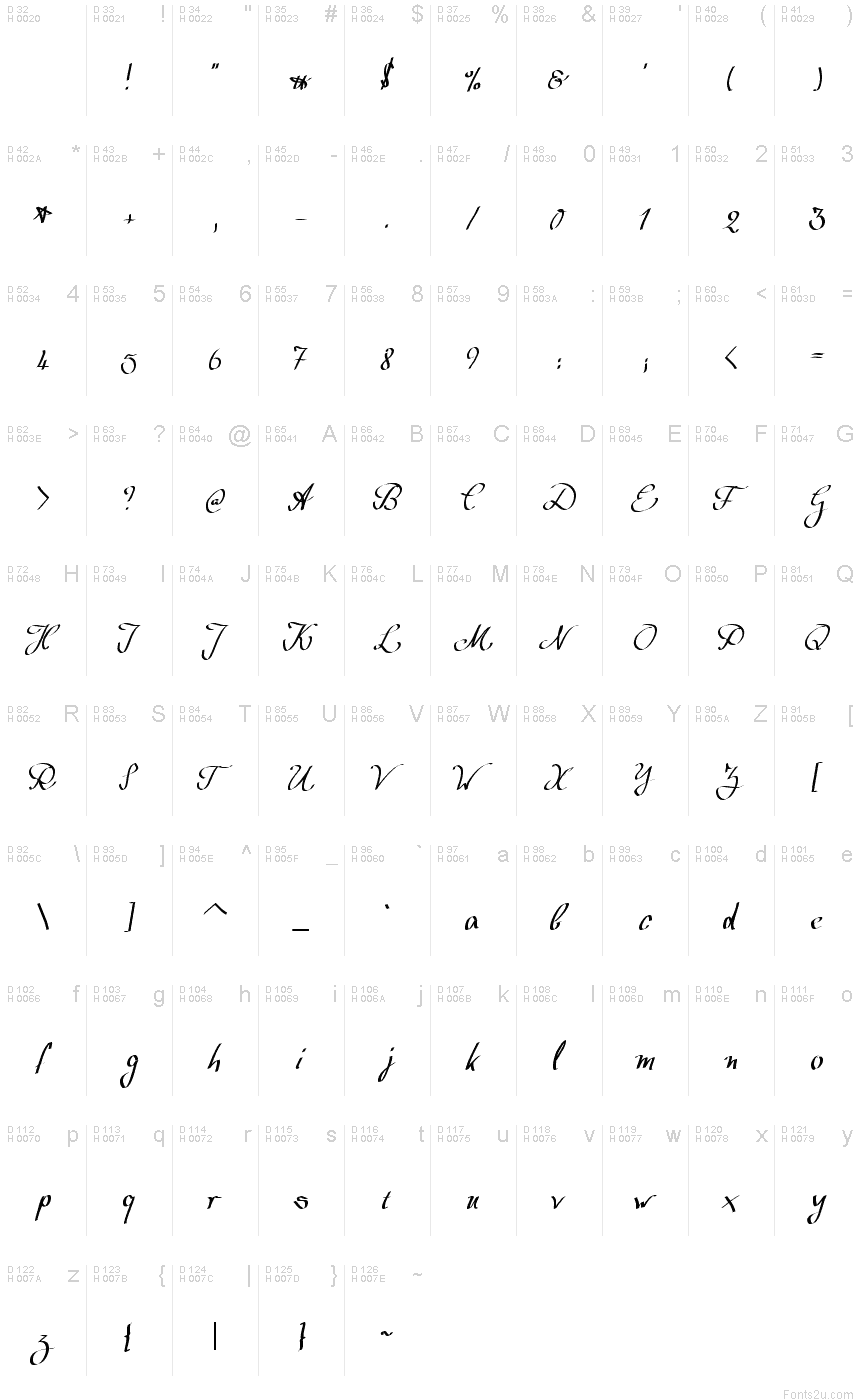
Wolgast Script by Peter Wiegel is a free high-contrast calligraphic script with sweeping, sharply tapered strokes. Narrow letters lean forward beneath long, energetic flourishes.
As a theatrical title, it can turn lettering into part of the artwork rather than a neutral caption. The dramatic penwork also suits fashion branding and fragrance packaging, where an elegant handwritten mark feels appropriate. Its flowing silhouette can echo ribbons or fabric in event invitations and editorial illustrations.